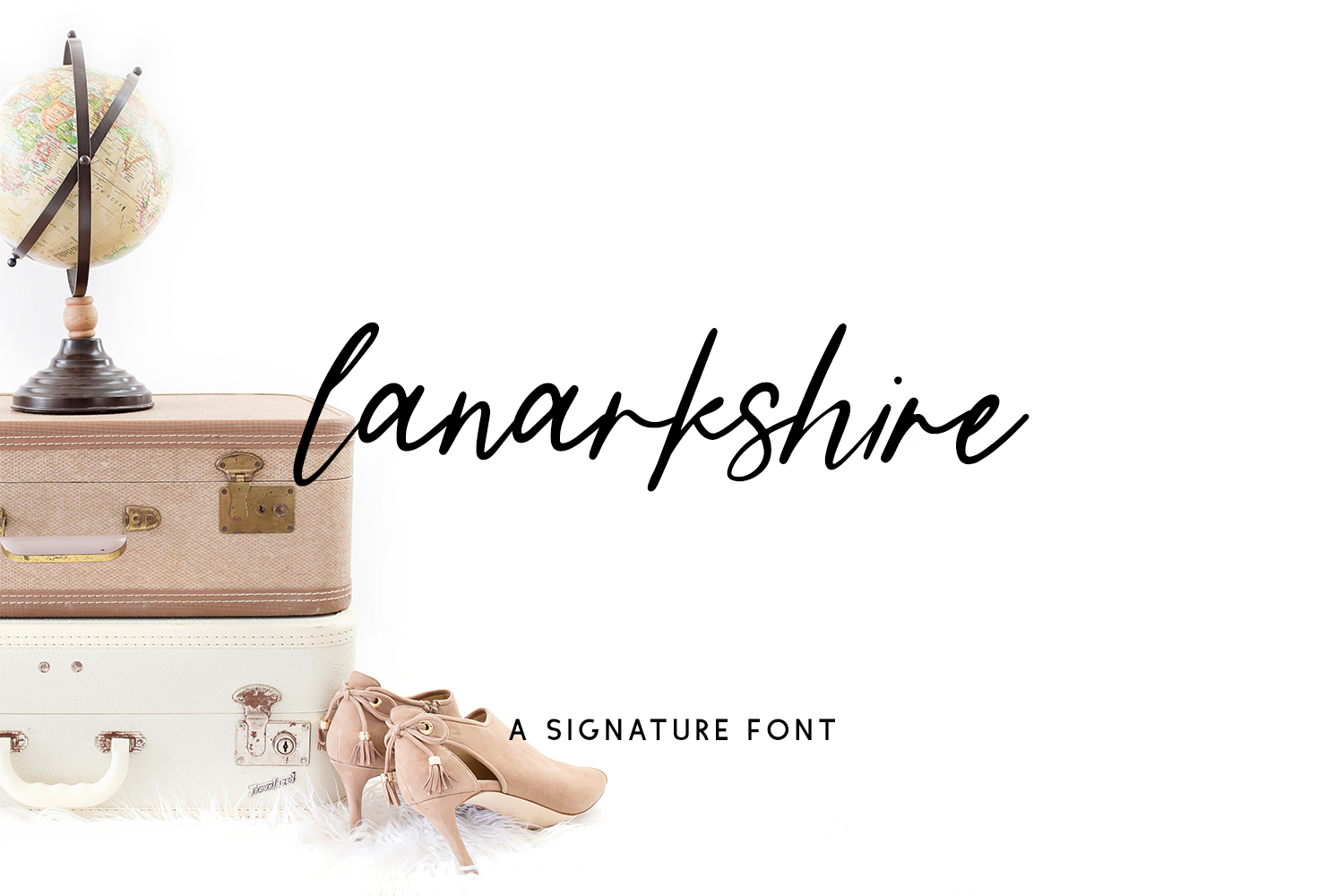
Introducing Lanarkshire Script, a signature style font that mimics the look and feel of a handwritten note.
Lanarkshire Script is best for:
- website design + website accents - think travel blogs, fashion blogs, & more
Lanarkshire includes:
- 26 alternate lowercase characters